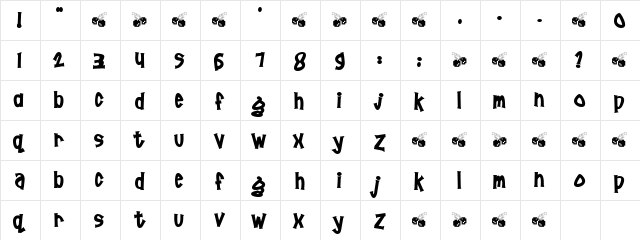
Poornut Regular Font Preview
Poornut Regular
Design Context for Poornut Typeface
Poornut is a composed and adaptable typeface that performs quietly and consistently across a wide range of design contexts.